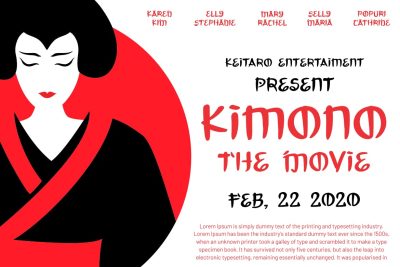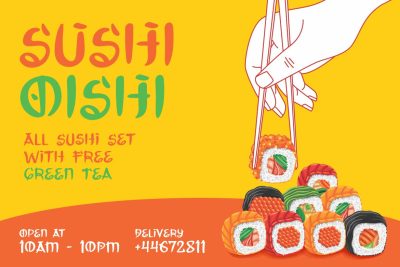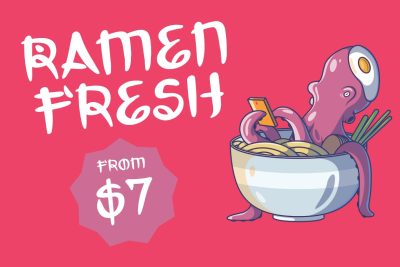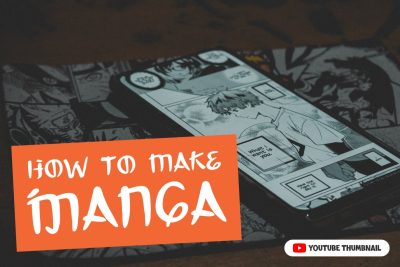
Japanese font Takoyaki is a vibrant and playful typeface inspired by Japanese street food culture and traditional aesthetics. Its bold, rounded lettering creates a fun and energetic vibe, making it ideal for designs that aim to capture a cheerful and lively atmosphere. Moreover, the name โTakoyaki,โ referencing the popular Japanese snack, perfectly reflects the font’s friendly and approachable style.
With its smooth, rounded forms and subtle decorative touches, Takoyaki combines simplicity with charm. Furthermore, it draws inspiration from traditional Japanese design while adding a modern, quirky vibe. The font stands out with its whimsical shapes that grab attention without sacrificing readability. Whether used for print or digital purposes, Japanese font Takoyaki brings cultural richness and joy to any project.
Japanese font Takoyaki Best Used For
Japanese font Takoyaki is perfect for businesses and creatives wanting to add fun and playfulness to their designs. Specifically, it is especially suited for branding and promotional materials for food-related businesses such as Japanese restaurants, food trucks, or snack brands. In addition, its lively style works well for menus, packaging, and signage that reflect the warmth of Japanese street culture.
Moreover, Takoyaki is great for event flyers, posters, and merchandise celebrating Japanese themes. It fits perfectly for childrenโs projects like book covers, educational materials, or playful stationery. Additionally, the font is an excellent choice for the entertainment industry, enhancing designs for anime, games, or pop culture merchandise.
For content creators and social media influencers, Takoyaki offers a unique way to create vibrant and engaging visuals. Thus, it is ideal for posts, videos, or campaigns targeting younger audiences or fans of playful aesthetics. Furthermore, its cheerful and cultural appeal ensures it connects with a broad range of audiences.
By combining tradition with modern flair, Japanese font Takoyaki ensures your project stands out. Whether youโre crafting a logo, poster, or social media content, this font adds charm, energy, and cultural authenticity to your work.